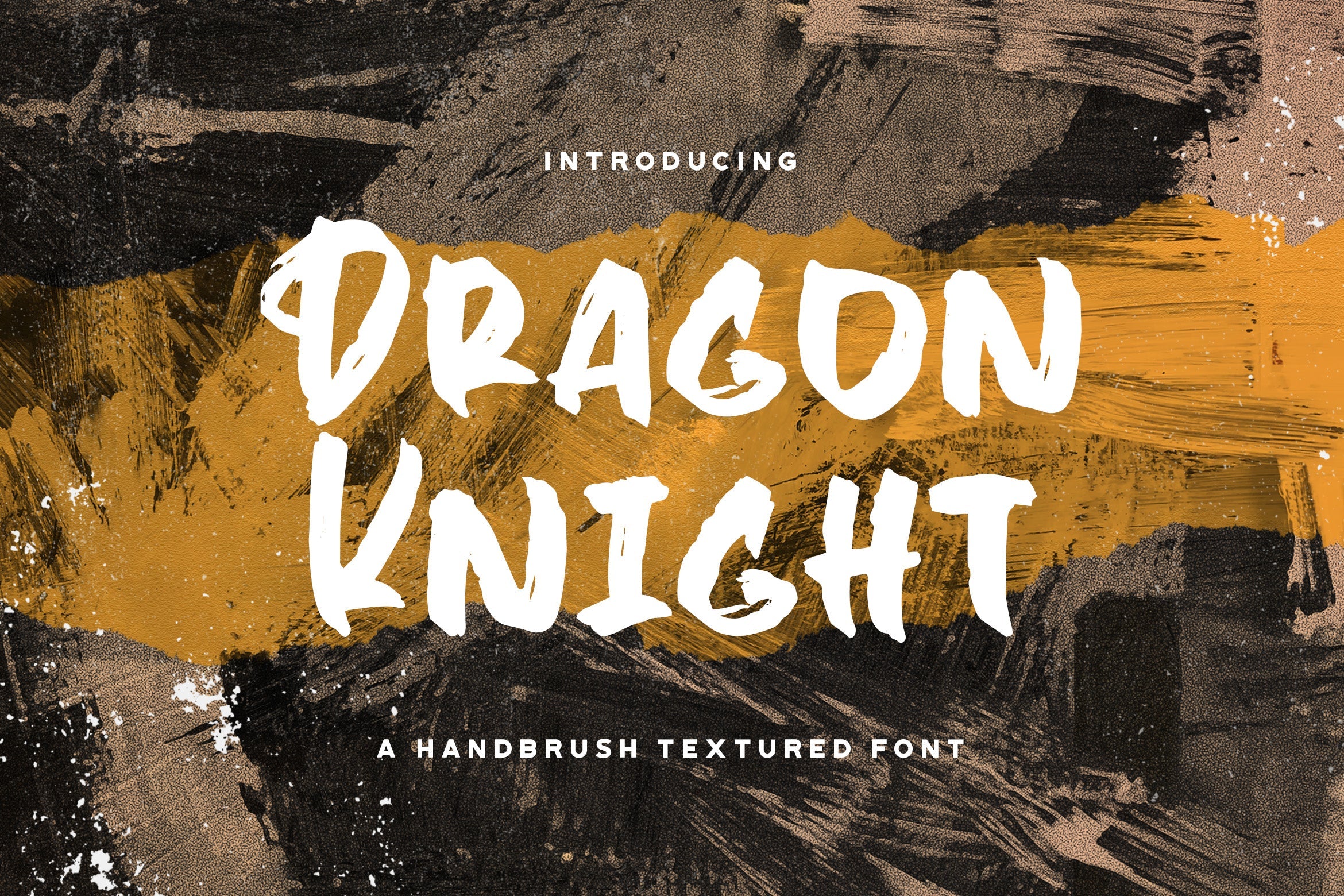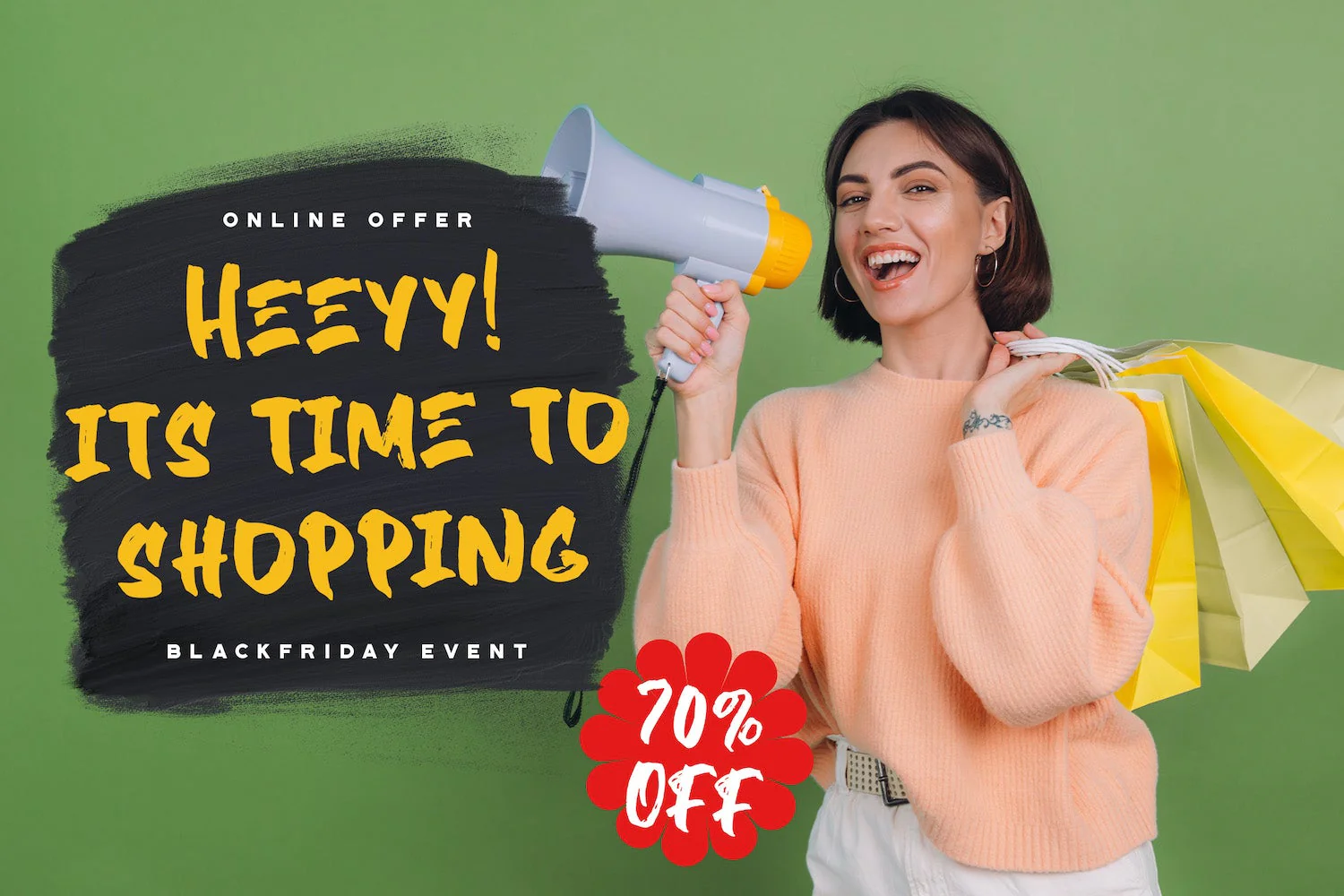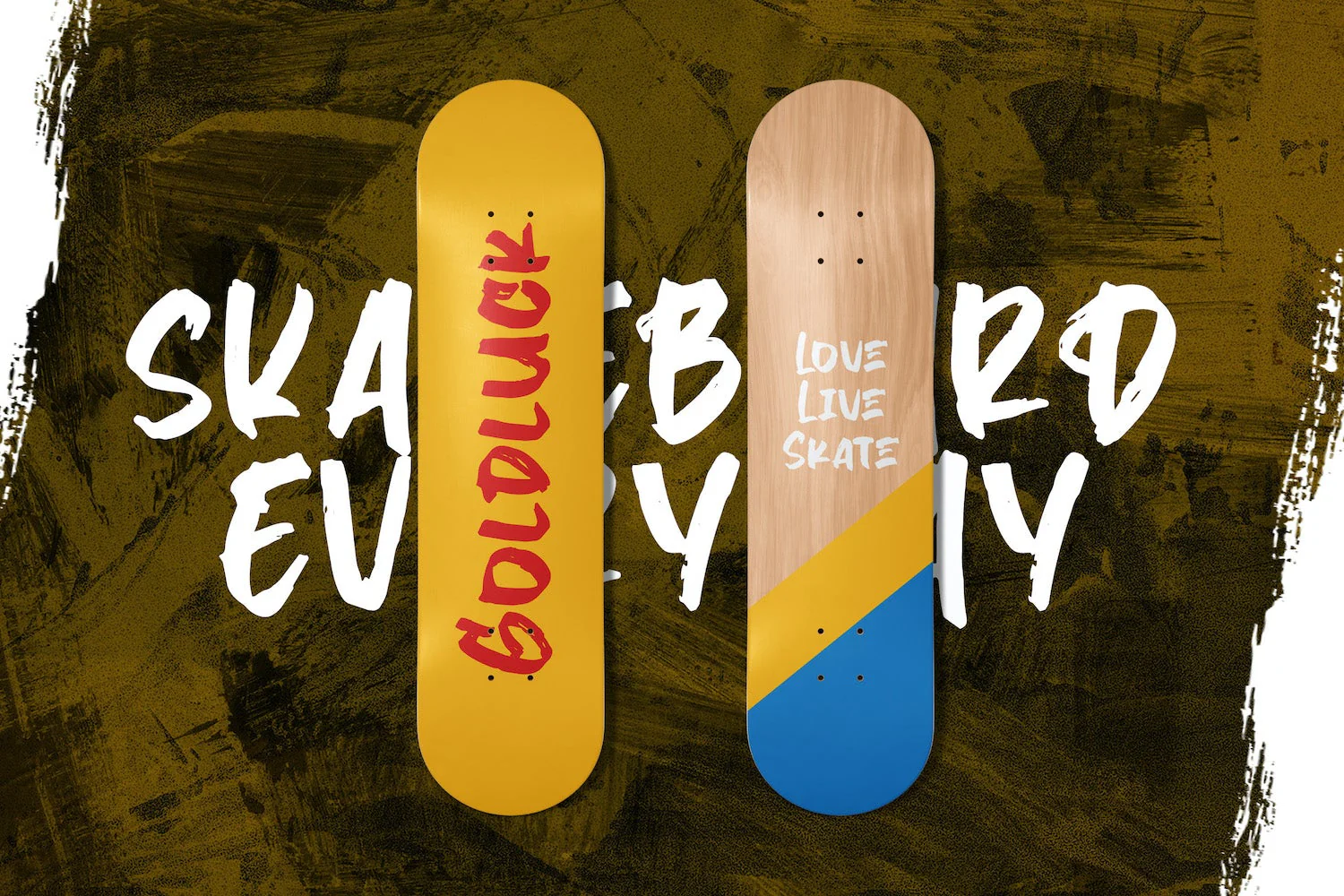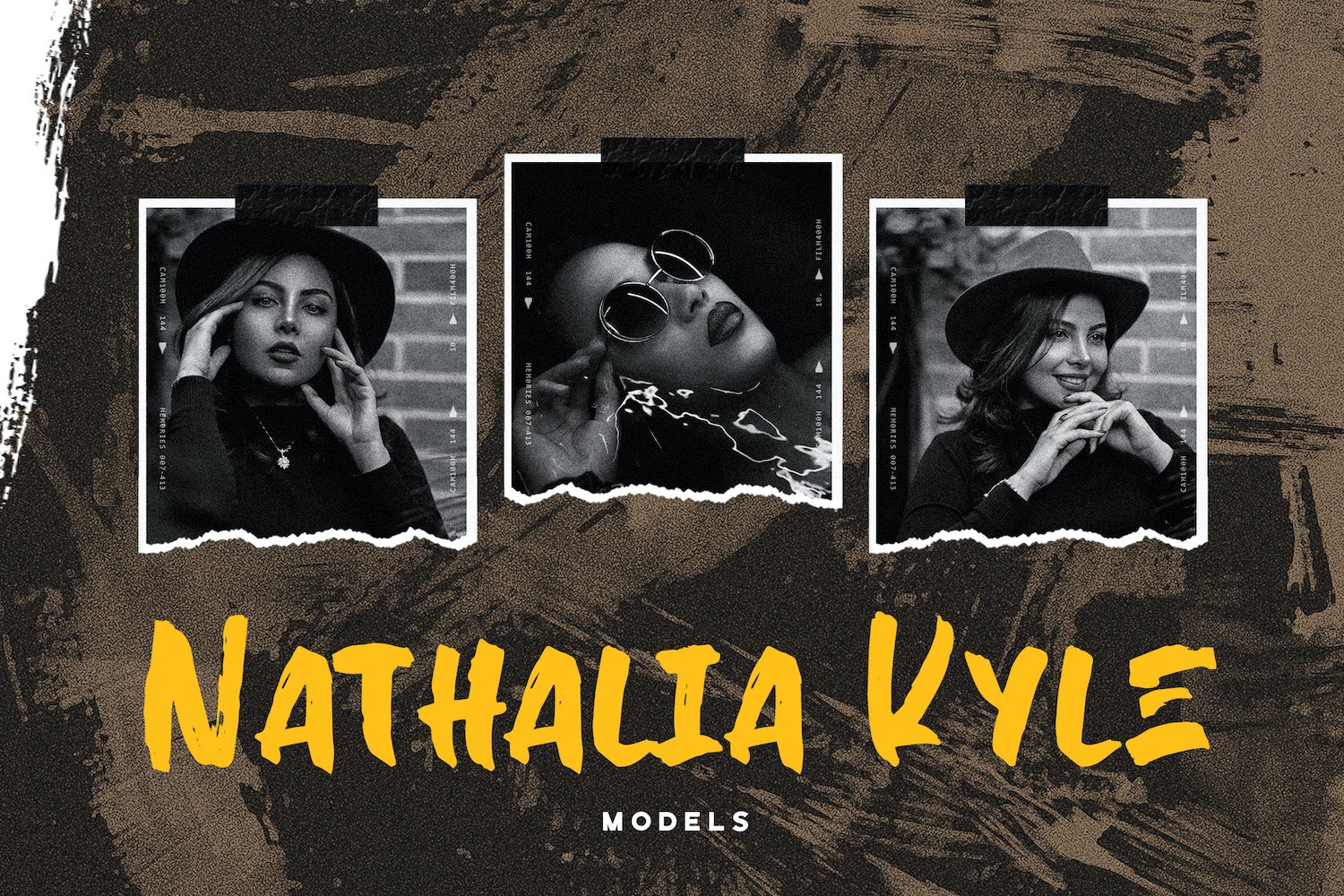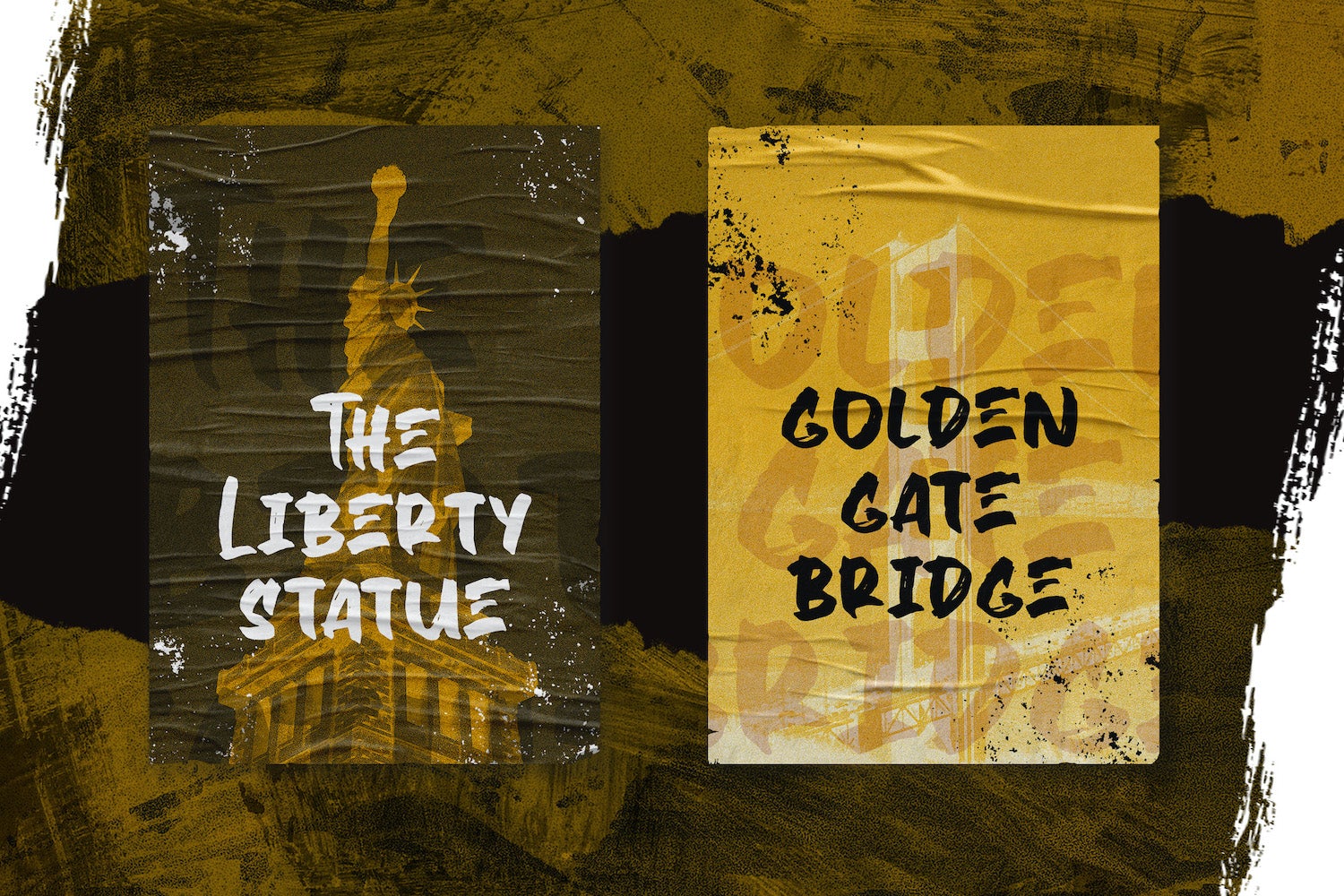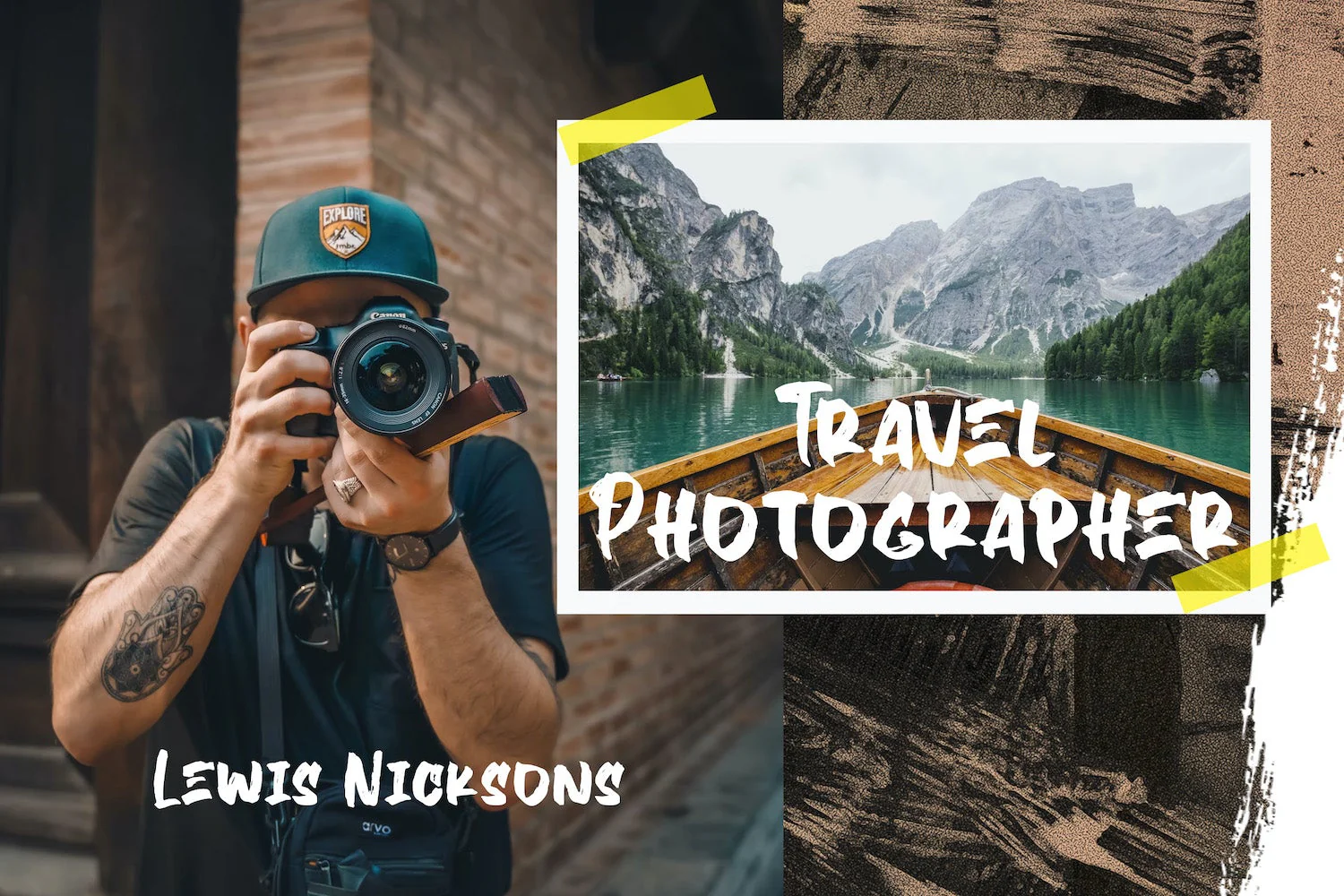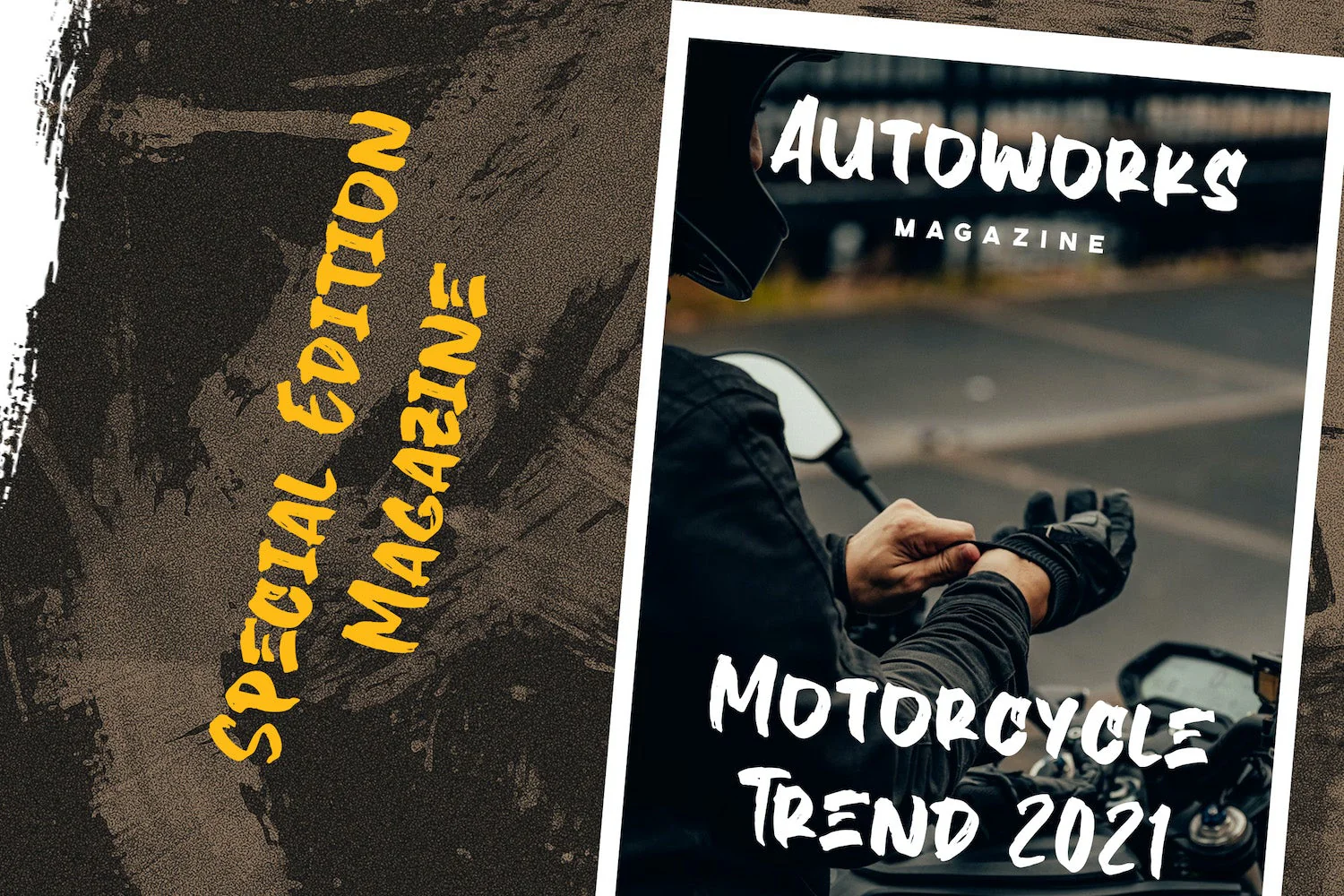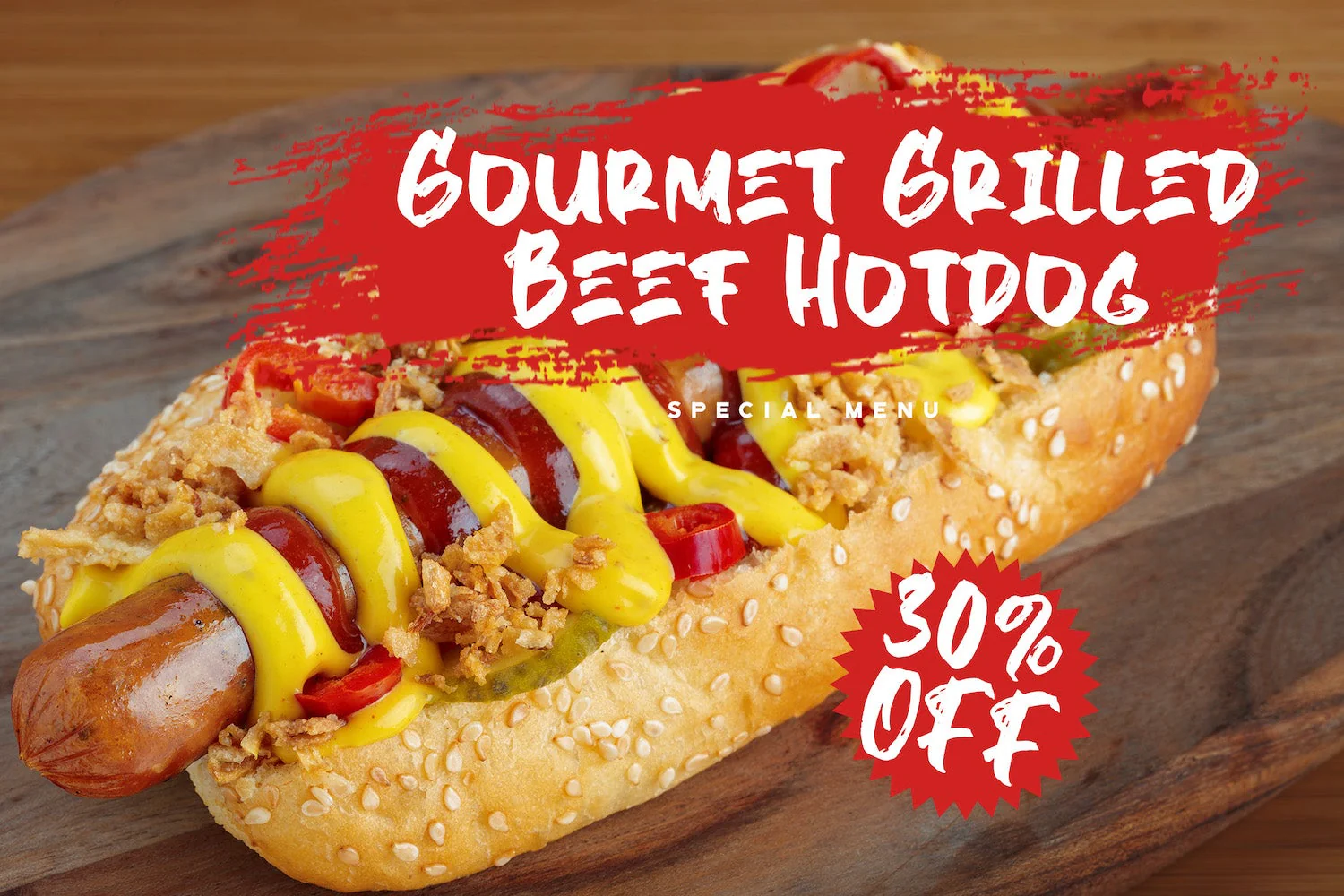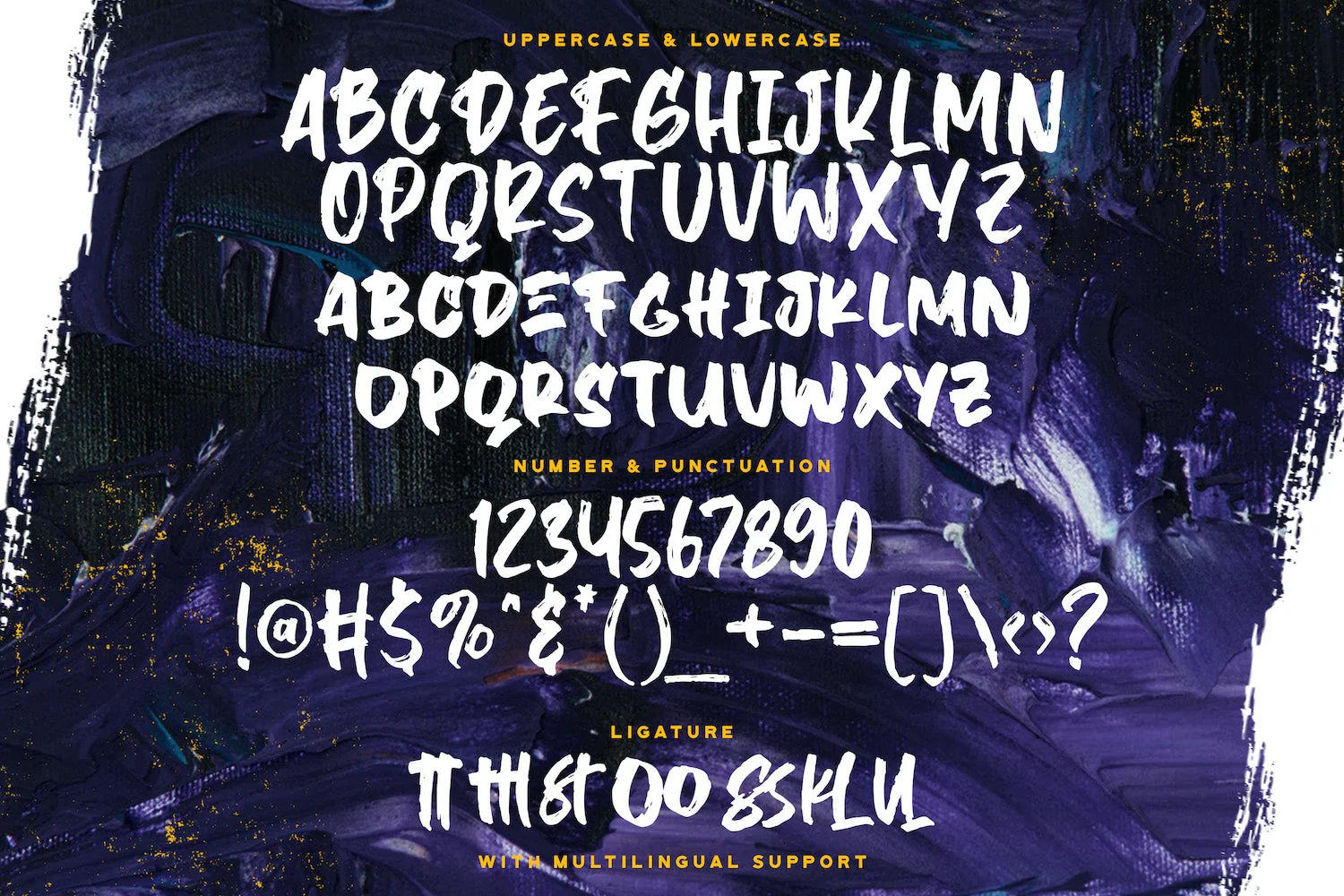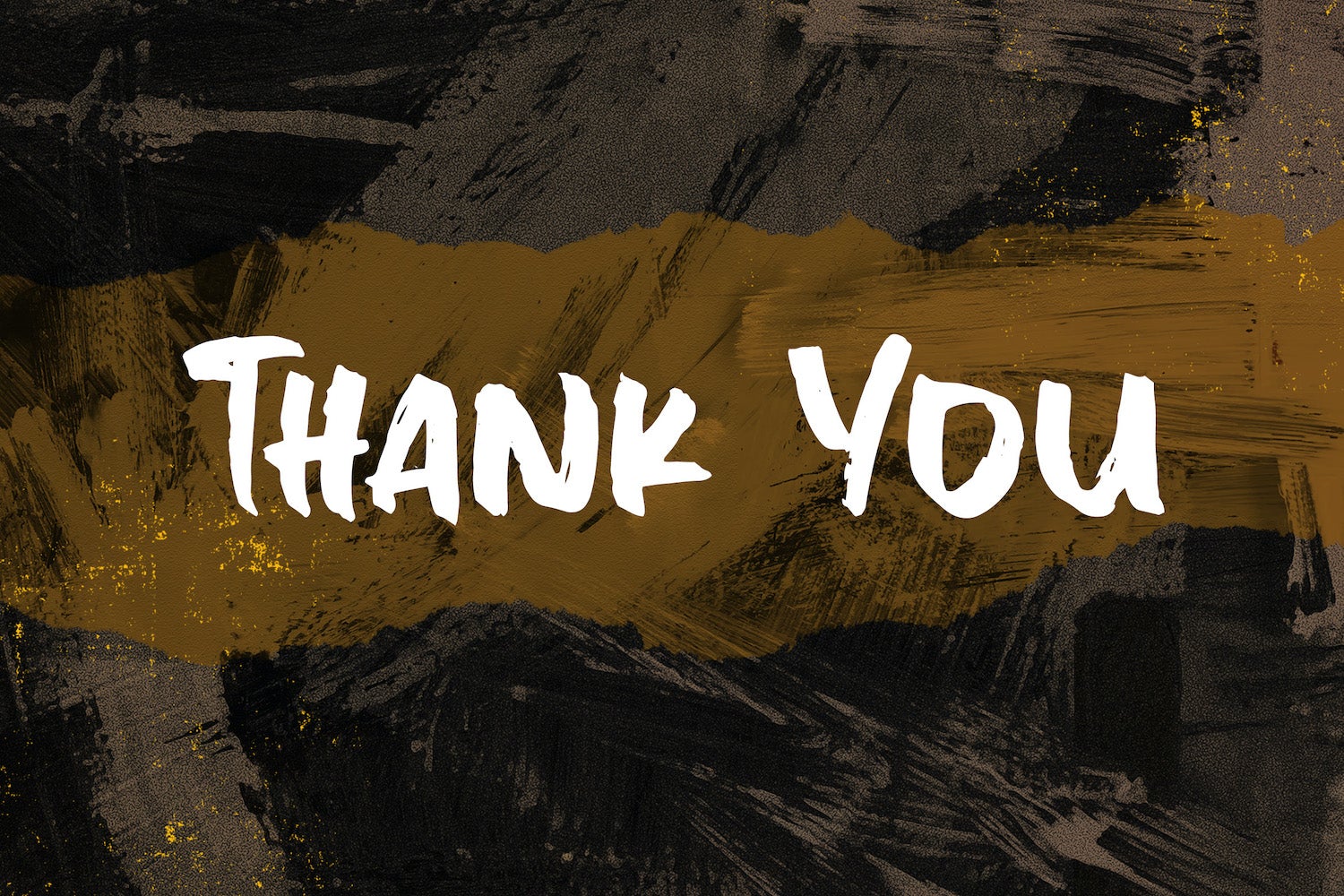
Dragon Knight - Textured Brush Font
Introducing Dragon Knight - Textured Brush Font
Dragon Knight is a textured handbrush font. Get inspired by its unique and beautiful style and add it to your favorite designs!
Introducing Dragon Knight - Textured Brush Font
Dragon Knight is a textured handbrush font. Get inspired by its unique and beautiful style and add it to your favorite designs!